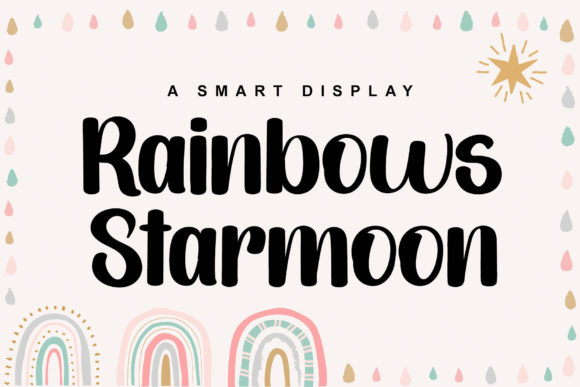
Introducing the Rainbows Starmoon Font - an exceptional display font that will elevate your designs to a whole new level! Created by YanStudio, this modern font family boasts of a stunningly sleek and stylish design that is sure to capture the attention of anyone who sets their eyes on it.
With its smooth curves and highly readable characters, the Rainbows Starmoon Font is perfect for fashion branding, editorial designs, and anything in between. Whether you're a professional designer or simply someone who wants to add a touch of elegance and sophistication to your projects, this font is the perfect choice.
What sets the Rainbows Starmoon Font apart from other display fonts is its ability to evoke emotions and convey meaning. Its smart and stylish design speaks volumes about your creativity and attention to detail. It is the perfect tool to express yourself and make a lasting impression on your audience.